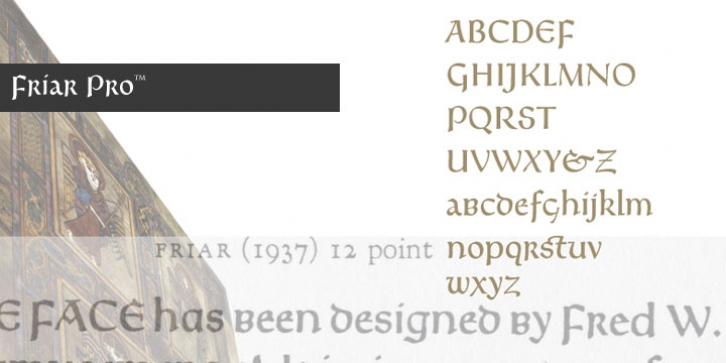
Friar Pro is a revival of Frederic W. Goudy’s “Friar” typeface.
Goudy described this typeface design as a ‘typographic solecism’ as it combines a lowercase of half-uncial forms from the 4th through 7th centuries with an uppercase of square capitals from the 4th century. Steve Matteson developed the font as a tribute to Goudy and his joy of typographic exploration.
Steve created a complete character set with OpenType typographic enhancements to give the font an authentic appearance to the original. Friar Pro is a beautiful design which imparts a scribal appearance to any document including greeting cards, certificates and official papers.